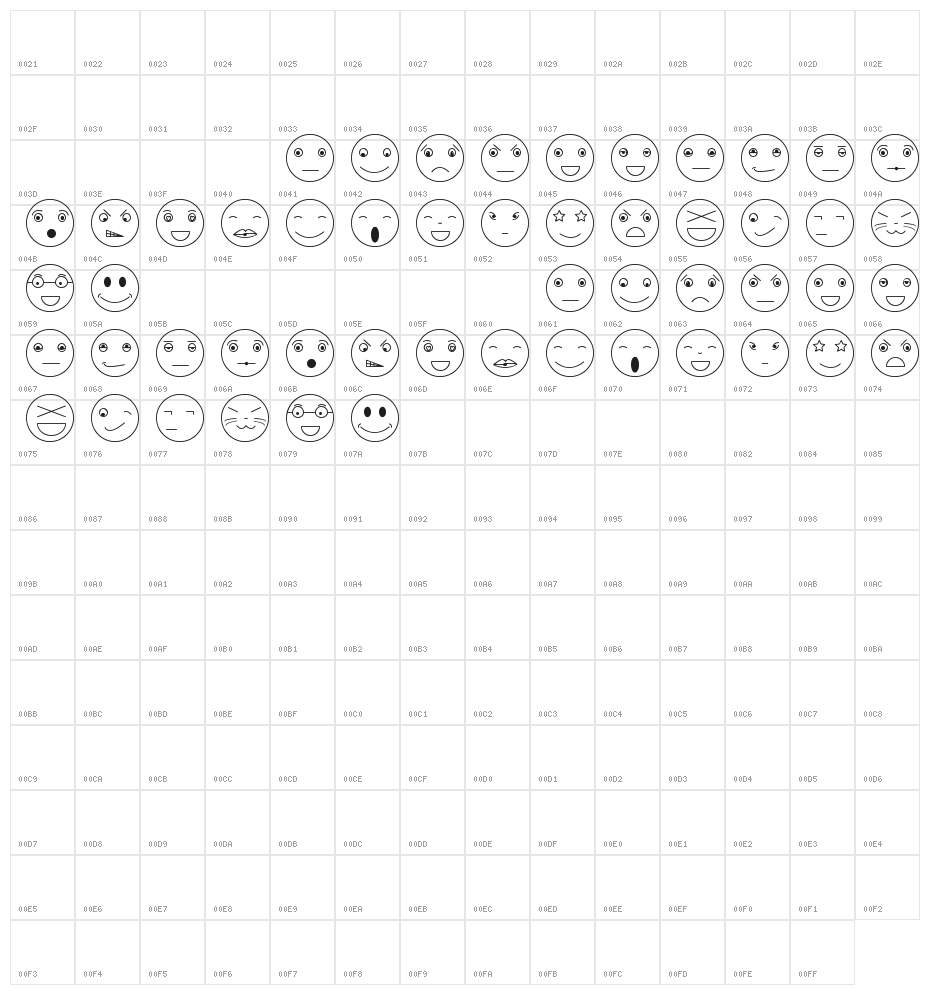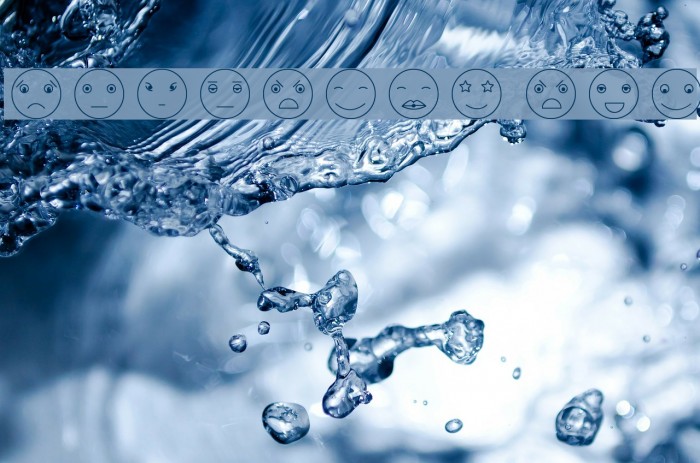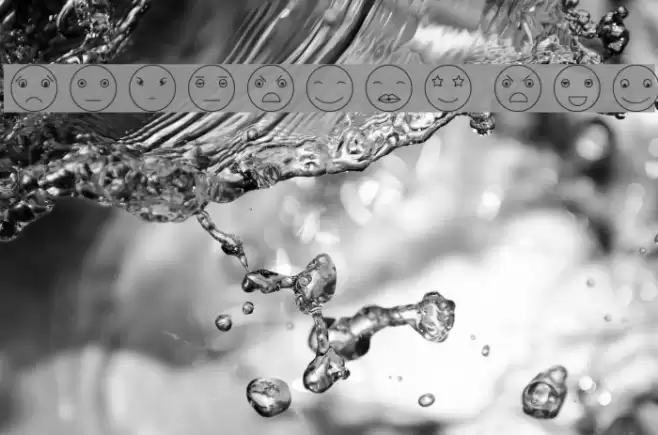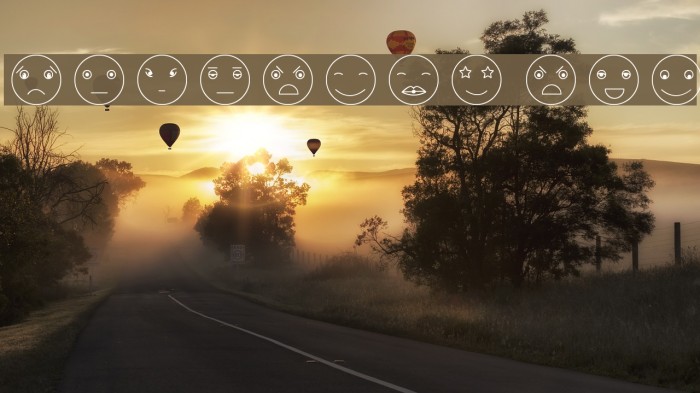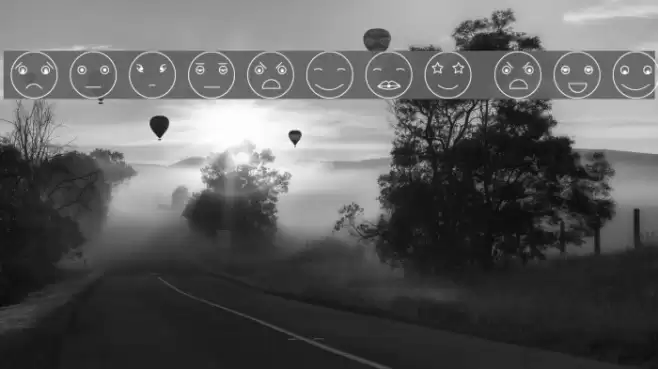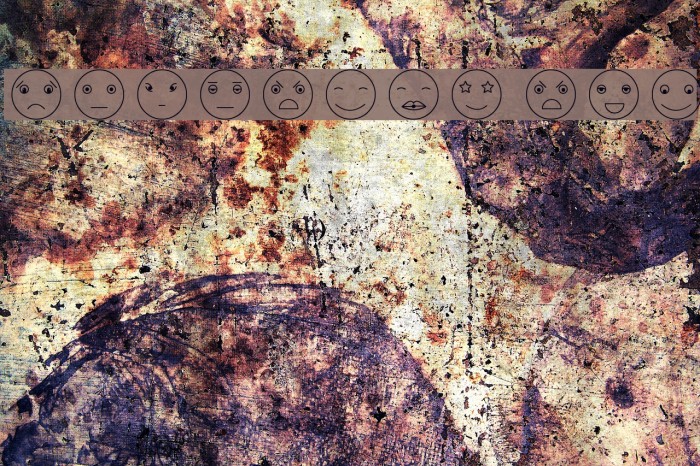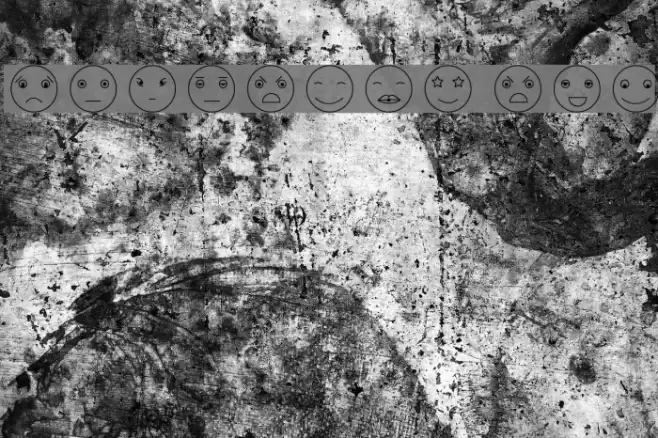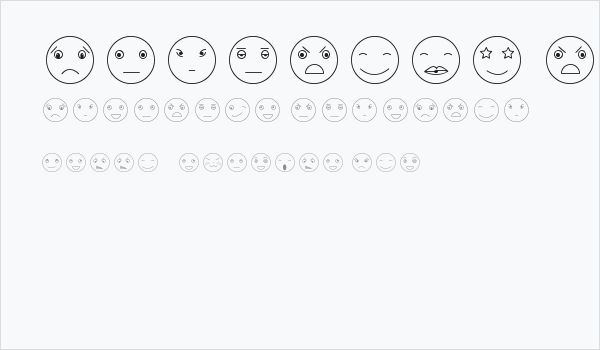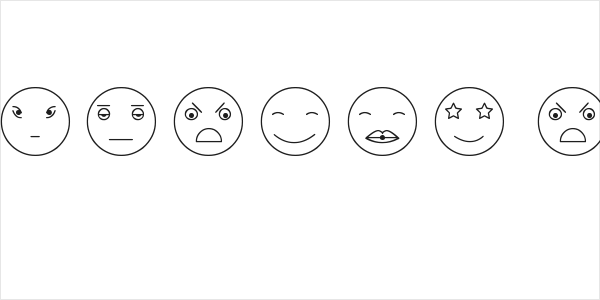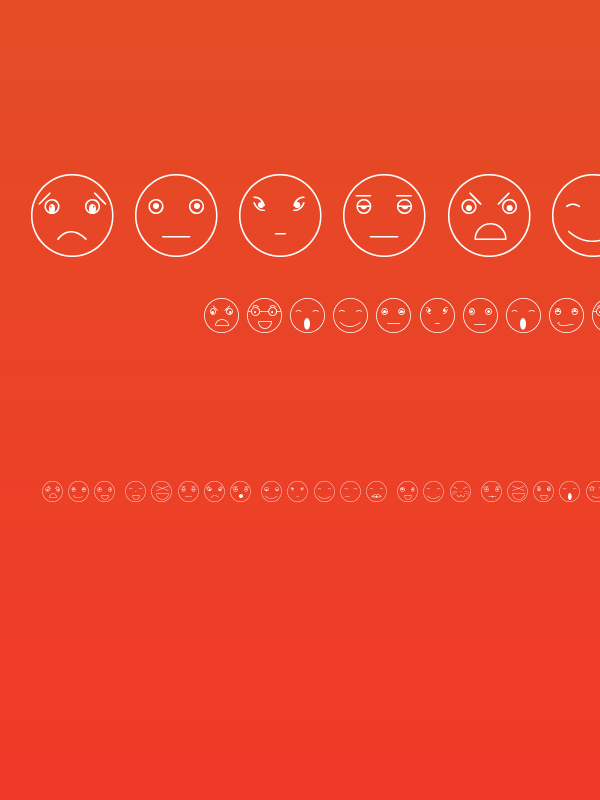
Caritons tfb Font
Caritons tfb Description
This is a decorative and playful font featuring a series of expressive emoticons. Each character is represented by a unique facial expression, ranging from happy and sad to surprised and angry. The design is minimalistic, with simple lines and circles forming the faces, making it suitable for informal and fun projects. The emoticons are consistent in size and style, providing a cohesive look across the set. This font is ideal for adding a touch of humor and personality to digital communications, social media graphics, or children's materials.
| Use Case | Logos, Headlines, Digital communications |
| Proposed Projects | Ideal for social media graphics, children's books, playful invitations, and digital communications. |